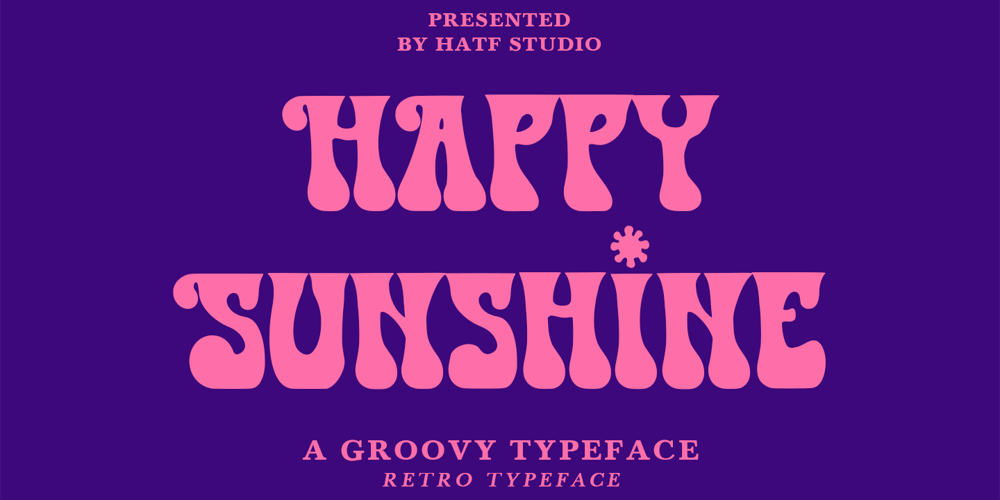
Happy Sunshine
Happy Sunshine font
Happy Sunshine Font Family was designed by Asep Rendi and published by Hatftype. Happy Sunshine contains 1 styles and family package options. Happy Sunshine – Groovy Typeface Font is a font with distinctive handwritten characters perfect for branding projects, logos, wedding designs, media posts, advertisements, product packaging, product designs, labels, photography, watermarks, invitations, stationery, and any project who need handwritten dishes.Features : • Character Set A-Z • Numerals & Punctuations (OpenType Standard) • Accents (Multilingual characters) • LigatureMultilingual Support : Afrikaans, Albanian, Asu, Basque, Bemba, Bena, Catalan, Chiga, Cornish, Danish, English, Estonian, Faroese, Filipino, Finnish, French, Friulian, Galician, German, Gusii, Icelandic, Indonesian, Irish, Italian, Kabuverdianu, Kalenjin, Kinyarwanda, Low German, Luo, Luxembourgish, Luyia, Machame, Makhuwa-Meetto, Makonde, Malagasy, Malay, Manx, Morisyen, North Ndebele, Norwegian Bokmål, Norwegian Nynorsk, Nyankole, Oromo, Portuguese, Romansh, Rombo, Rundi, Rwa, Samburu, Sango, Sangu, Scottish Gaelic, Sena, Shambala, Shona, Soga, Somali, Spanish, Swahili, Swedish, Swiss German, Taita, Teso, Vunjo, Zulu.There it is.I really hope you enjoy it.